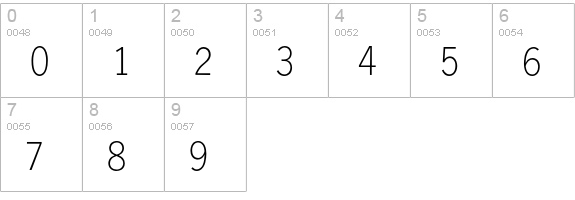
Lightline Gothic is a sleek and modern font that exudes a sense of sophistication and elegance. Its clean lines and sharp angles give it a stylish and contemporary look, making it perfect for a wide range of design projects. With its minimalist aesthetic and versatile design, Lightline Gothic is an ideal choice for branding, logos, packaging, and more. The best part? Lightline Gothic is completely free to download at FontsMarket.com. This means you can add this stunning font to your collection without having to spend a dime. Don't miss out on the opportunity to enhance your designs with the beauty and simplicity of Lightline Gothic. Download it today and see the difference it can make in your creative projects.